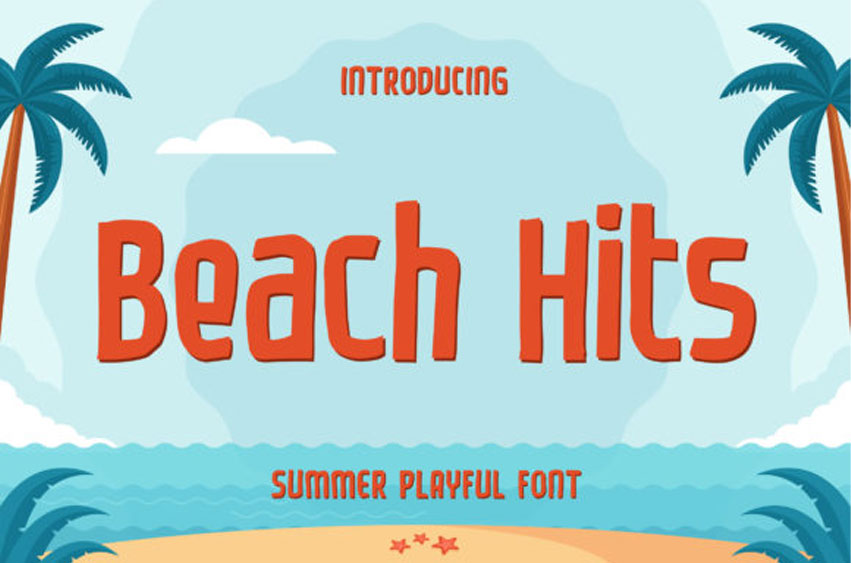
Beach Hits Font
Beach Hits Font is a cool and playful display font. It is PUA encoded which means you can access all of the glyphs and swashes with ease!